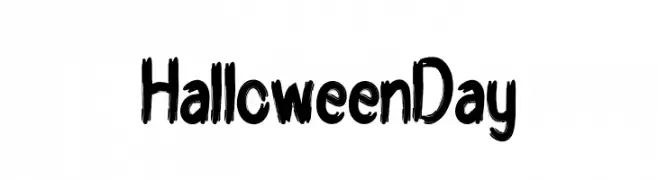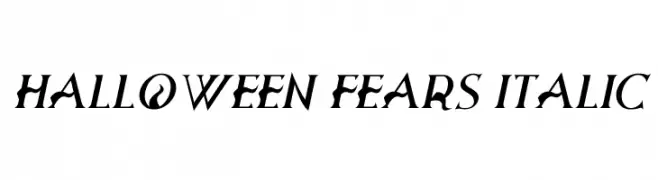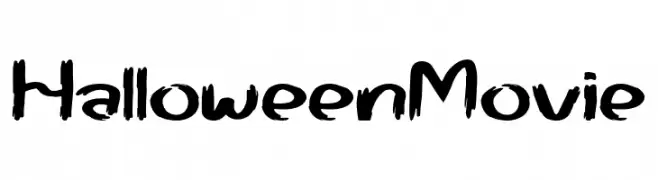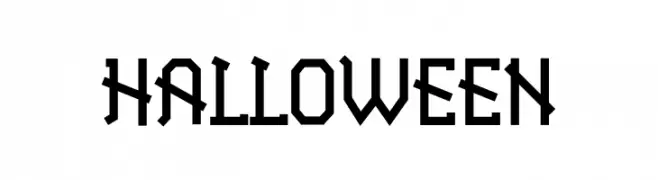
A dramatic, horror-themed font with sharp edges and dripping elements.
A bold, horror-themed font with dripping, jagged characters.
A spooky, web-themed decorative font with a distressed, eerie style.
A playful, bone-themed decorative font ideal for spooky designs.
A whimsical, monster-themed font with playful, hand-drawn characters.
A whimsical, gothic-style font with irregular strokes and playful curves.
A bold, dripping font with a horror-inspired, decorative style.
A jagged, gothic font with sharp, thorn-like characters.
A jagged, eerie font with sharp, needle-like edges and a dripping effect.
A bold, dripping font with a playful yet eerie style.
A bold, distressed font ideal for spooky, horror-themed designs.
A playful font with monster-themed characters, perfect for whimsical designs.
A whimsical font with characters inside bubbling cauldrons, perfect for fantasy themes.
A jagged, eerie font ideal for horror themes.
An edgy, bone-like font with sharp, irregular edges and a rugged appearance.
A playful, hand-drawn font with a spooky, irregular style.
A bold, dripping font with a spooky, horror-themed aesthetic.
A bold, jagged font with a distressed, horror-themed design.
A playful, bone-themed font perfect for creative and themed projects.
A distressed, italic font with a ghostly, weathered appearance.
A distressed, ghostly font with an eerie, decayed texture.
A horror-themed font with dripping, jagged edges and a chaotic style.
A creepy, scrawled italic font with bold, fluid strokes.